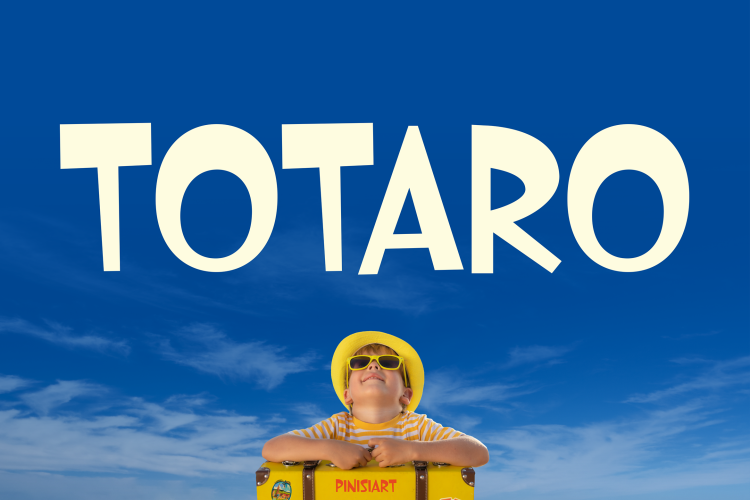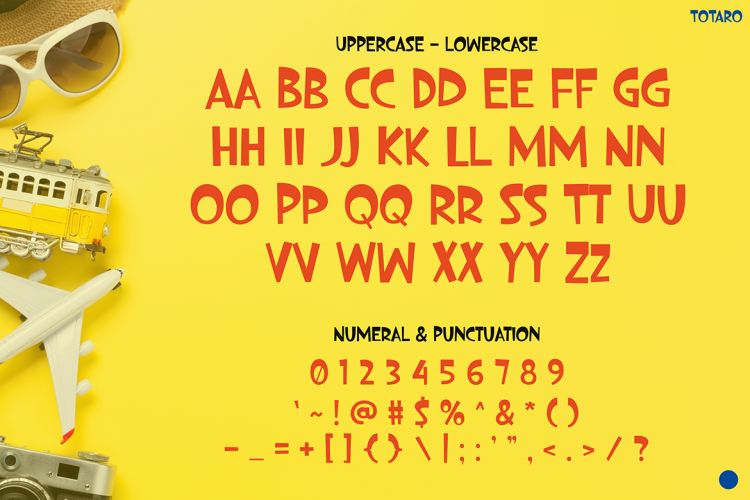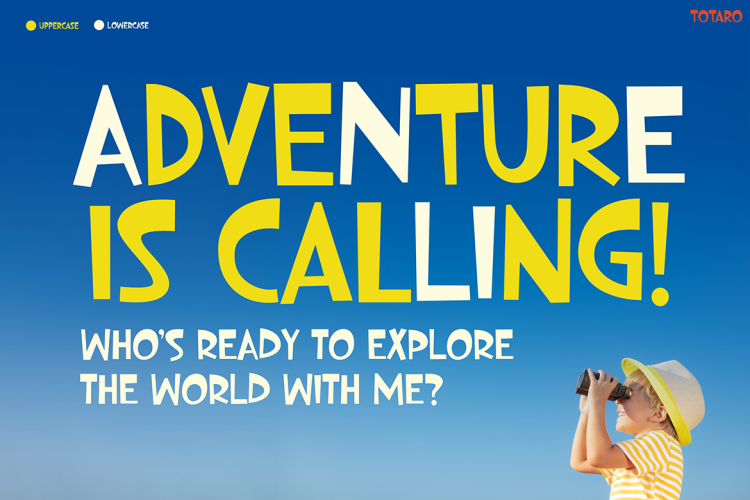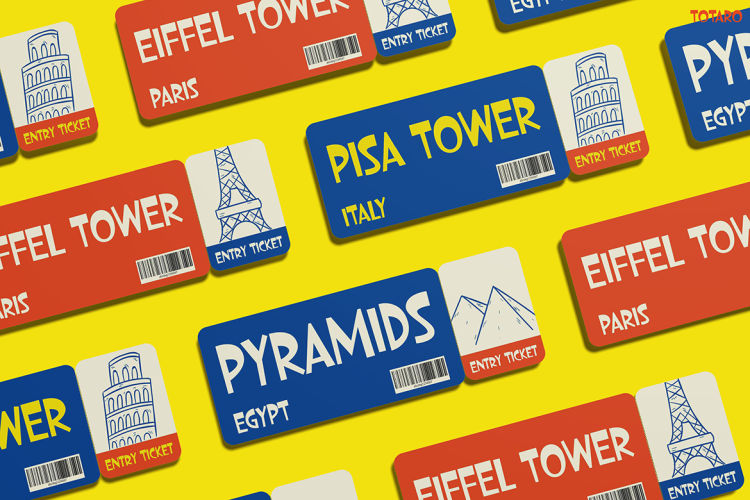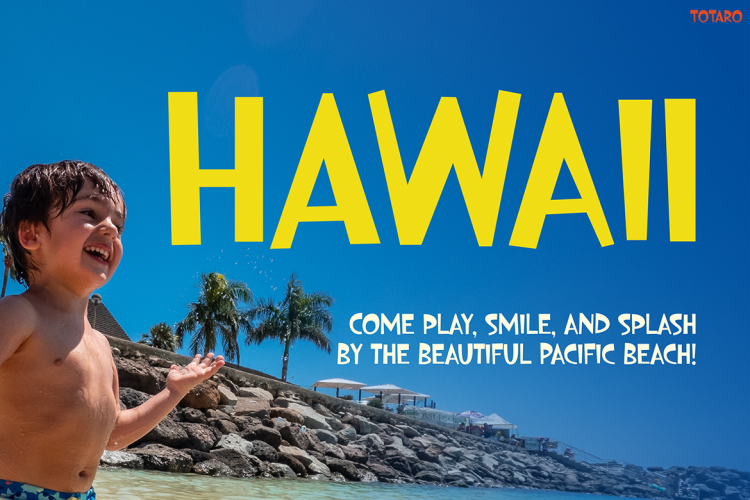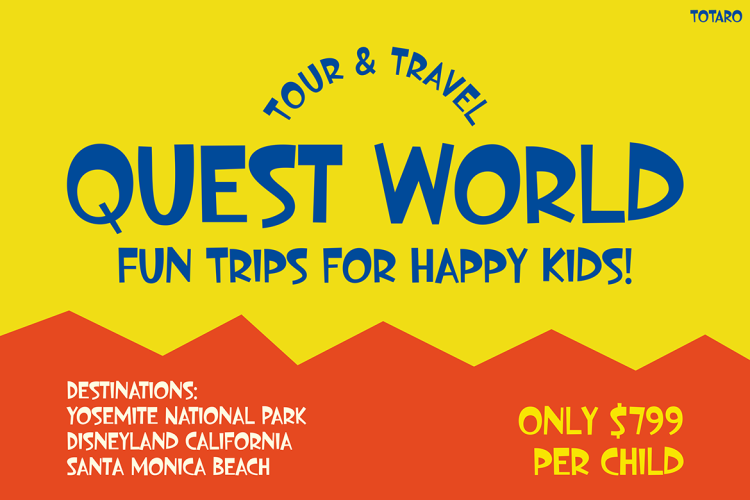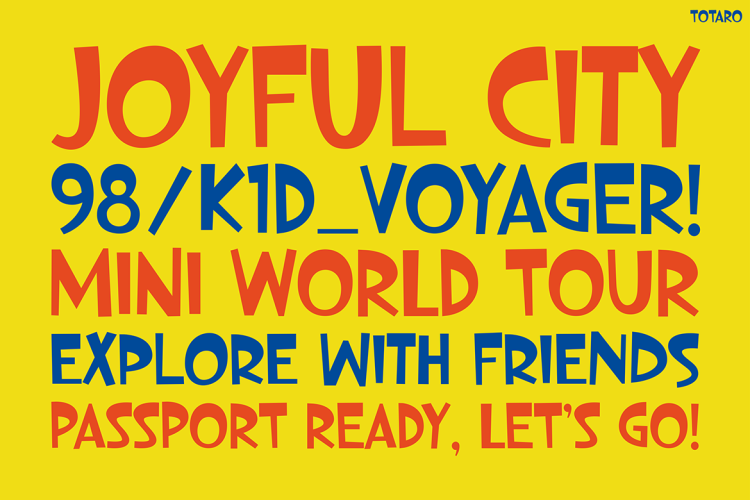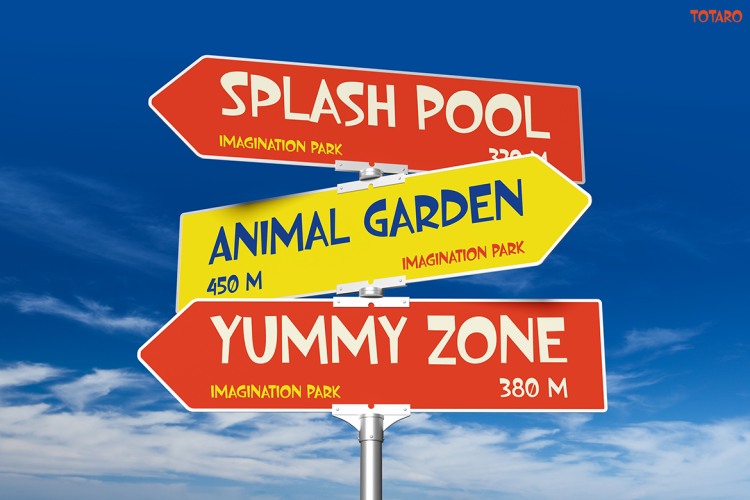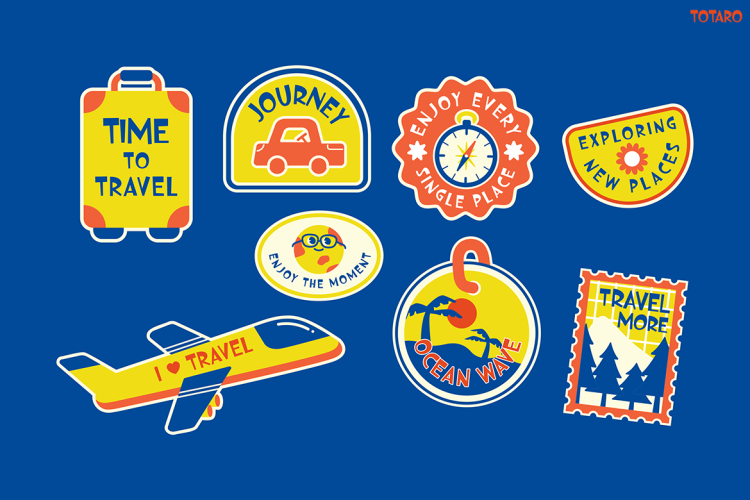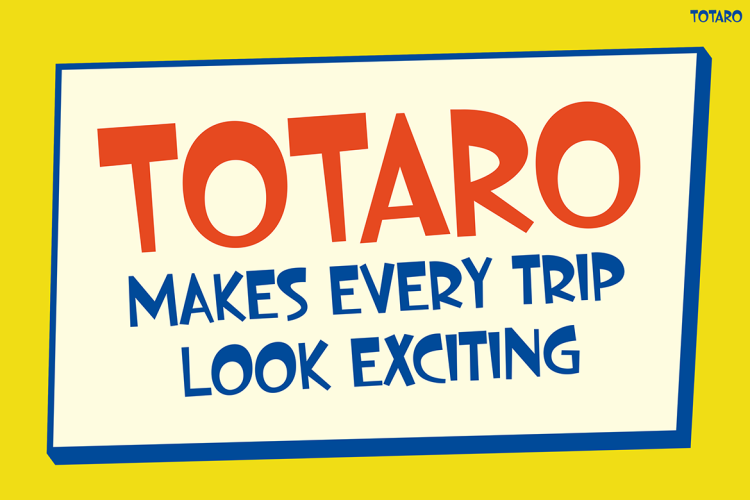
Kids Font TOTARO โ A Bright, Bold Typeface for Big Adventures!
Kids Font TOTARO is a fun, all-caps display font bursting with energy, designed to bring excitement to your projects. With chunky, rounded characters and clean geometric structure, this font adds a sense of movement and joy to every word. Inspired by travel, summer fun, and childhood wonder, its bold look makes headlines pop and visuals feel dynamic.
The shapes are slightly playful yet highly legible, making it perfect for projects where clarity and enthusiasm are both essential. From signs and labels to banners and storytelling layouts, TOTARO makes every message feel like the start of a great journey. The font balances consistency with creativityโevery character is friendly, but never boring.
Looking at the previews, you’ll see how TOTARO transforms design themes like travel, amusement parks, kidsโ programs, and holiday adventures. It handles long words just as well as short punchlines, and works especially well when paired with vibrant colors.
Perfect For:
Kids Font TOTARO is a great fit for:
Childrenโs travel guides, summer camp posters, and activity books
Amusement park maps, signs, and wayfinding systems
School events, educational games, and kid-friendly apps
Fun merchandise like T-shirts, stickers, and packaging
YouTube thumbnails, travel videos, and digital adventure content
Whether you’re a designer working on playful promotions or a teacher organizing class trips, this font gives your words a bright, enthusiastic boost. Itโs especially loved by brands, educators, and creators who want their messages to jump off the page and straight into kids’ imaginations.
Get Ready to Explore with TOTARO!
If your project calls for energy, clarity, and an adventurous spirit, Kids Font TOTARO is the ticket. It’s more than just a display fontโit’s an invitation to explore. So, whether you’re promoting a fun zone or making an activity map, TOTARO is your perfect travel buddy.